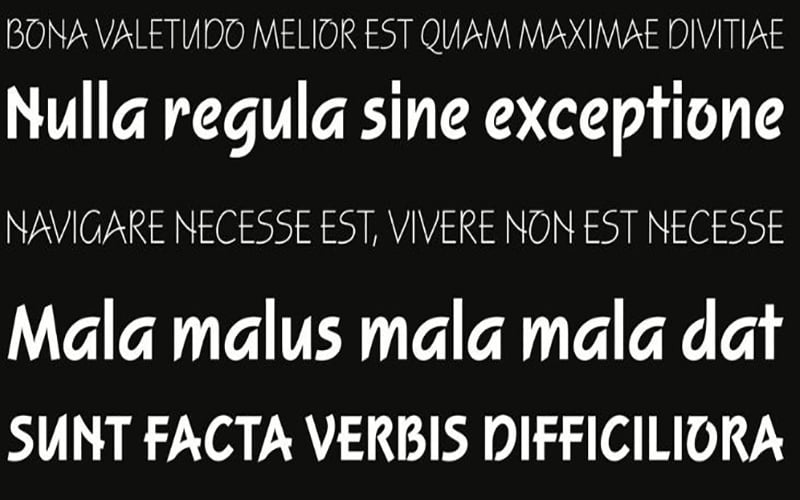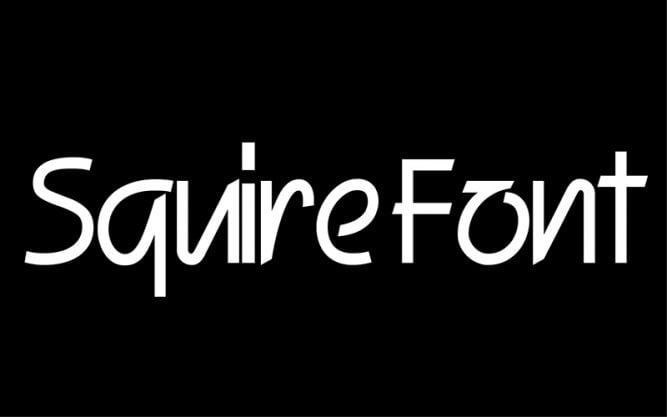
Squire Font is a square and free sans serif typeface family. The amazing font is made by Michael Neugebauer. The character of this unusual sans serif typeface provides a combination of formal and informal construction.
The free font has available in four unique weights including bold, normal, plain, and regular. It features vintage designs and unique character designs that will set your designs apart from the crowd.
This font is a fun and dynamic typeface family designed for various uses. Which is a great choice for work such as greeting cards, menus, advertising, printing cards, book covers, magazine covers, and designing logos.
Each style includes more than 350 glyphs. Complete with uppercase, lowercase, and special letters, including large-scale European support (western, central, and southeast European glyphs), and is available on anchor fonts.
The modern font has a beautiful foundation, but with a perfectly modern beautiful look, easy to read comfortably, but never tiresome. It gives a calm and clear feeling to any content.
Works great for branding and products. It can be used for adult and children’s themed projects. Includes character loads in all design tasks. Perfect for different and eye-catching graphics.
Squire is versatile in a variety of advertising applications, large and small. It is available in upper case, lower case, accents, and numbers, symbols. The natural style of every letter designs a gentle fluency to the text.